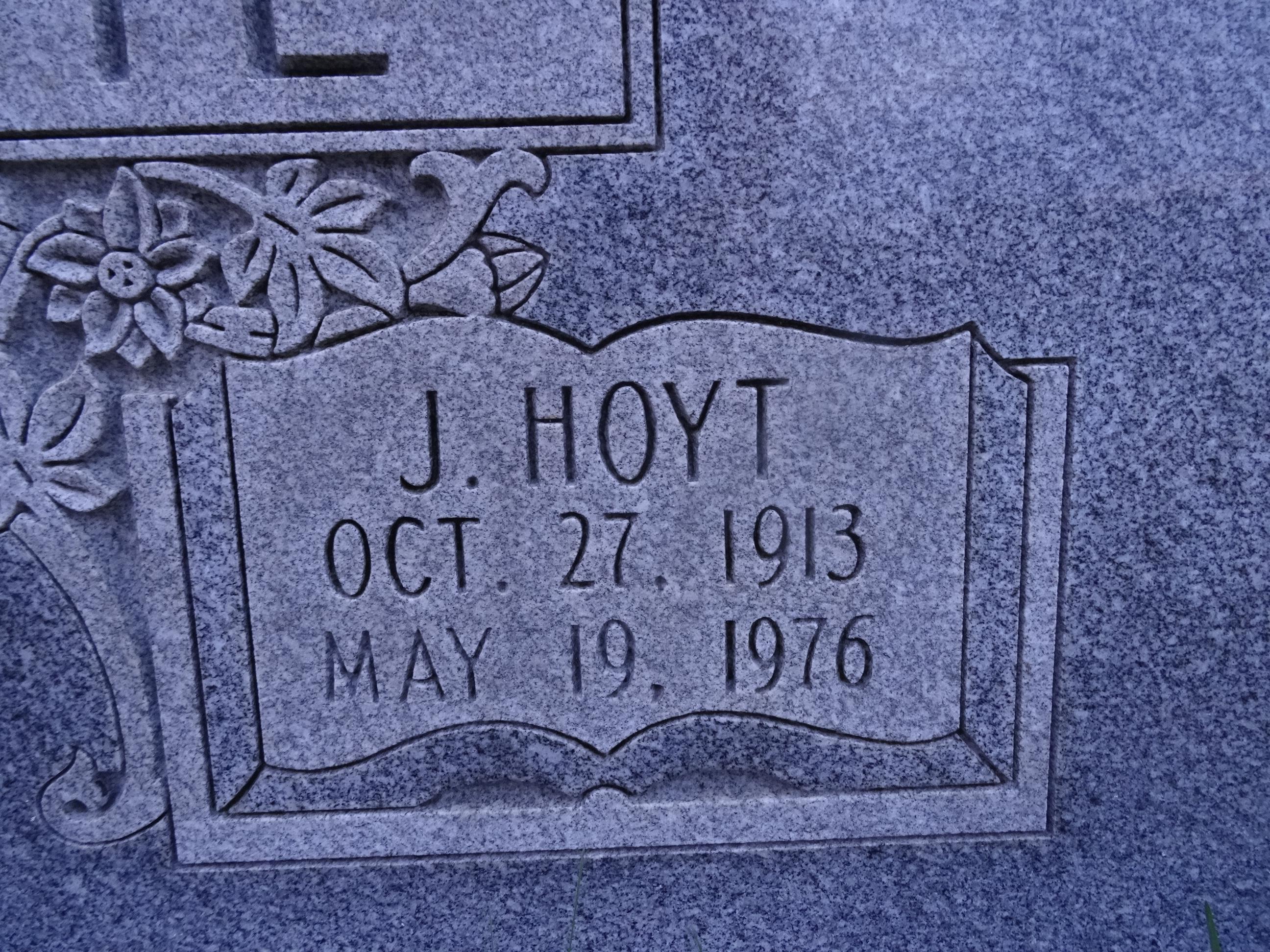
This is Condensed Roman Semi-Sans lettering. The metal Spacerite letters were likely used, and then most of the serifs were removed by the stencil cutter.
There is a version of a Condensed Roman Semi-Sans font in the MLC Font Shop, but it will not match this exactly, and would need to be modified in order to match more closely. Because the serifs were removed by hand, the specific serifs that were removed or left on varies from stone to stone. It also appears that the stencil cutter made the characters a little bolder while cutting.